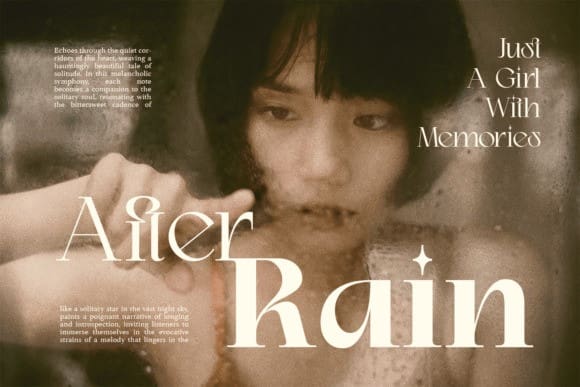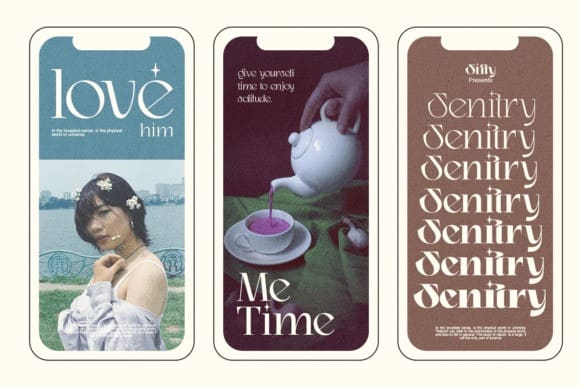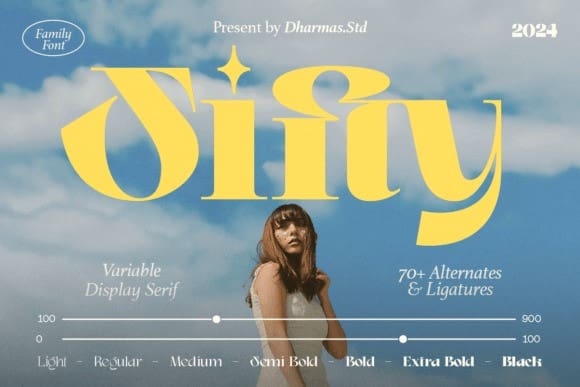
Sifty Font Family
Sifty Font Family – A brand display serif with a different letter shape than usual! Sifty is a modern serif family featuring tightly-spaced serifs reminiscent of the 80s and 90s, making a stylish comeback. We aimed to create the perfect font for you too!
With 7 style families (Light to Black) and unique ligatures, Sifty suitable for short text and long words such as headlines, logos, UI design, magazine text, product descriptions, and other design needs